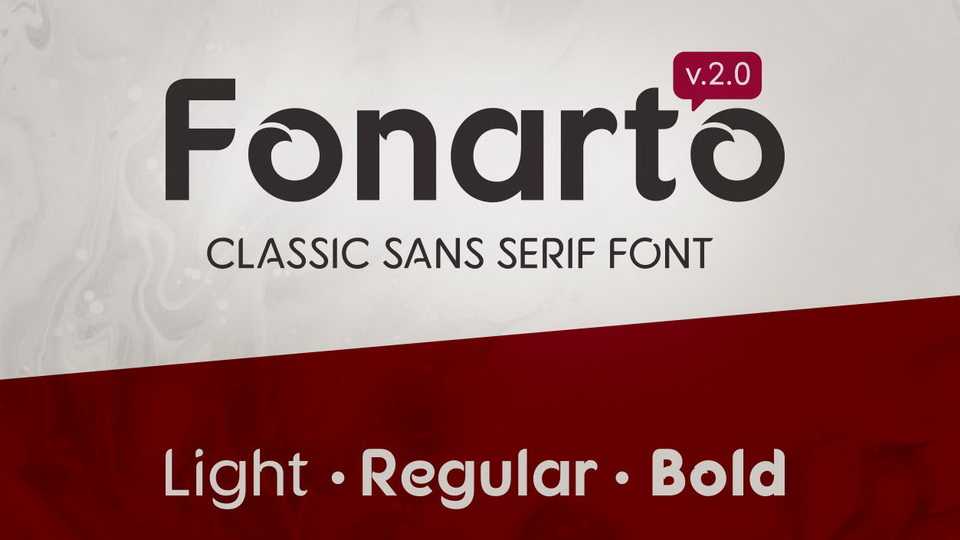
Download Fonarto 2.0 font, a decorative classic sans serif in Light, Regular and Bold weights. Fonarto 2.0 font family is great for headlines, posters, text blocks, is suitable for logos, branding, packaging, merchandise and more.